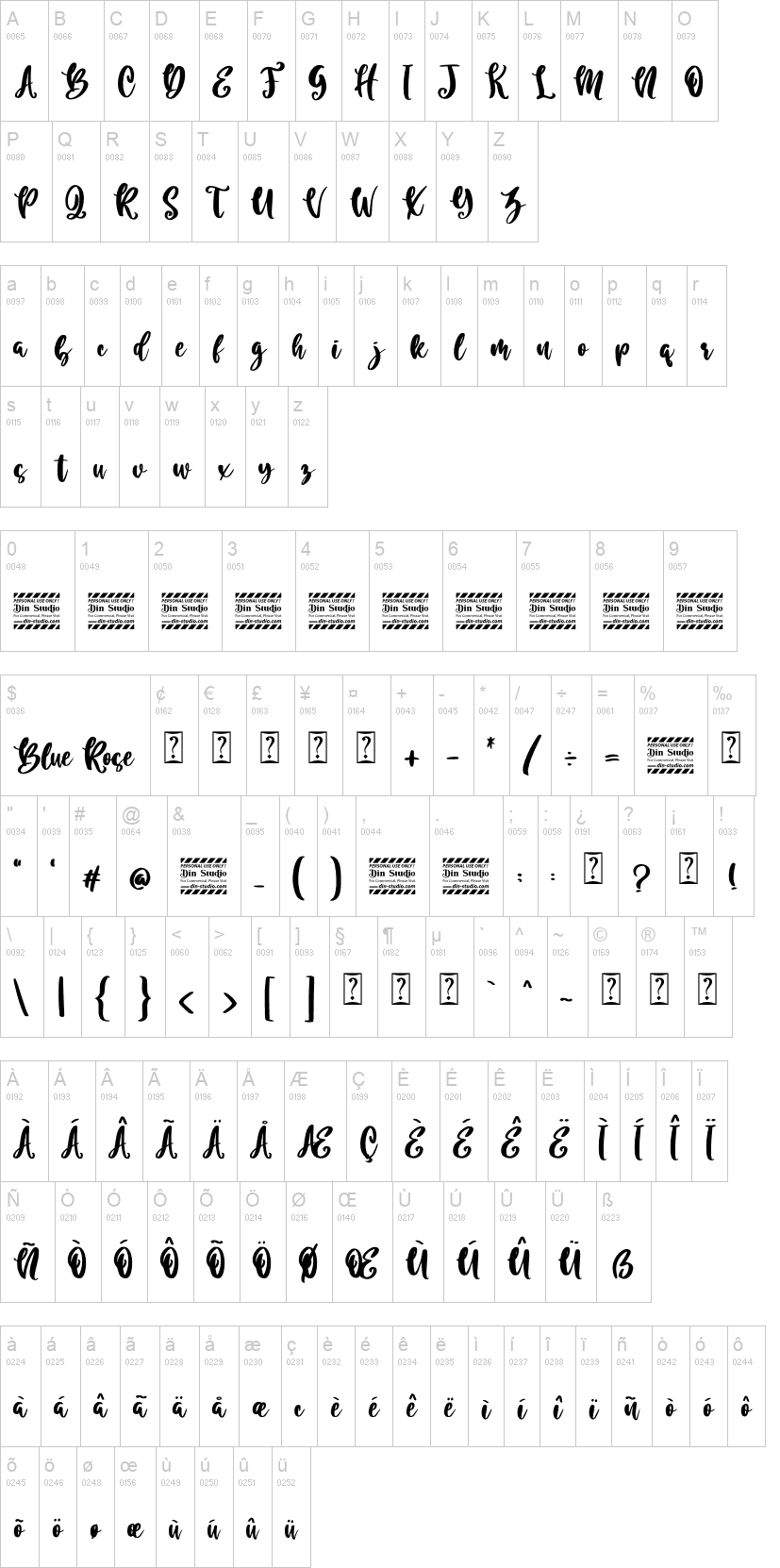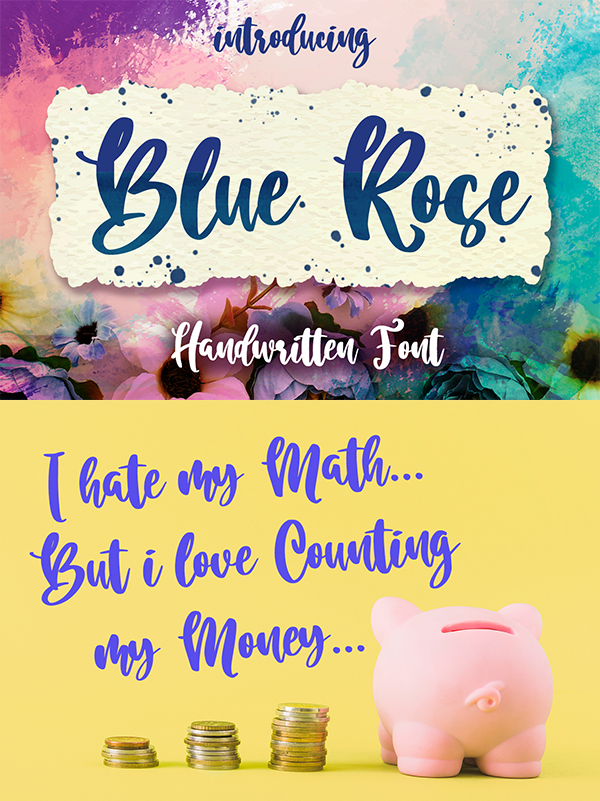
Say hello to Blue Rose
Made from a chic brush, it will make your design more beautiful. Suitable for your any design like a quote, t-shirt printing, and etc.